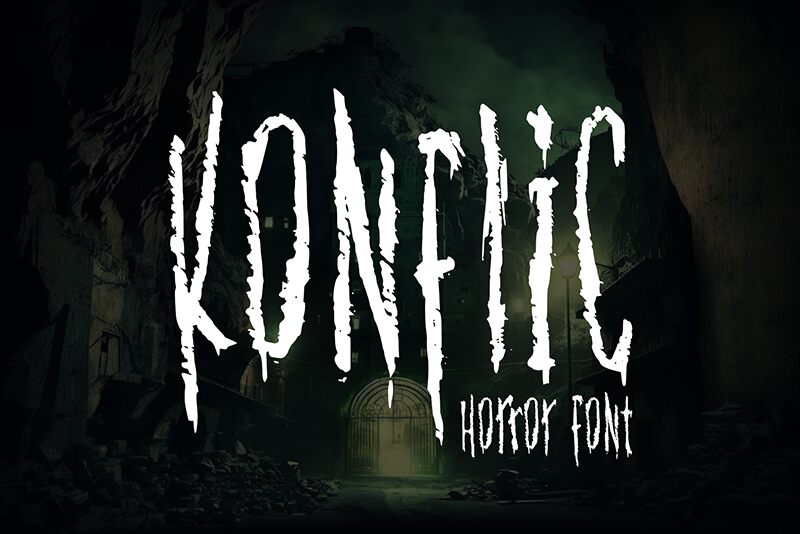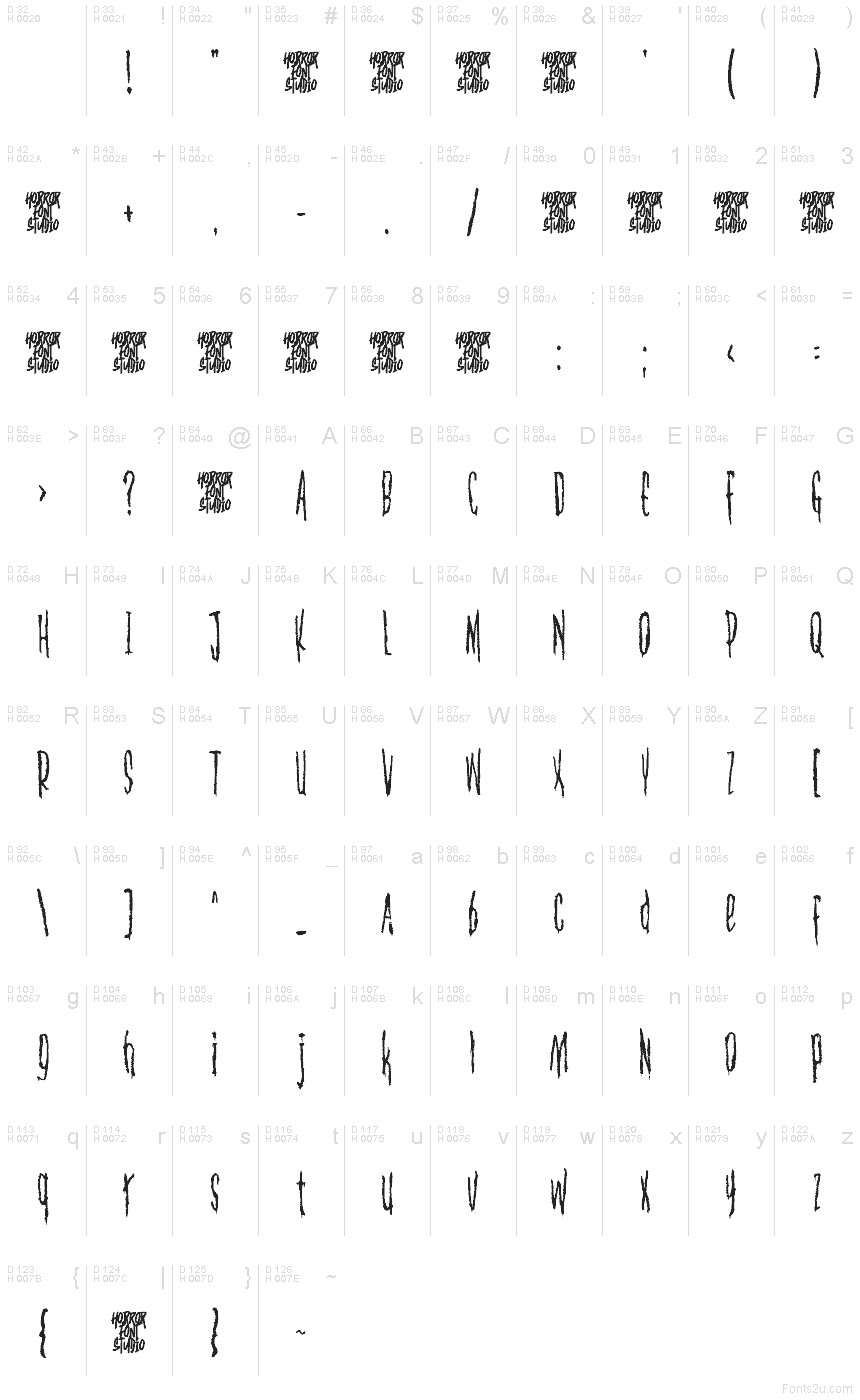
Konflic
Konflic font by Horror Font is a free scary display font built to jolt the viewer. Tall, shredded strokes climb like claw marks, while gritty speckles and torn edges give each letter a raw, splattered feel. Set big, it reads like a scream—urgent, chaotic, and unmistakably horror.
Using Konflic, headlines snap into focus for horror movie posters, haunted house flyers, metal or punk album covers, game titles, Halloween merch, and escape-room branding; it also punches on YouTube thumbnails. This free font thrives at large sizes with tight spacing. Pair it with a clean, condensed sans for credits or captions to keep the chaos legible.